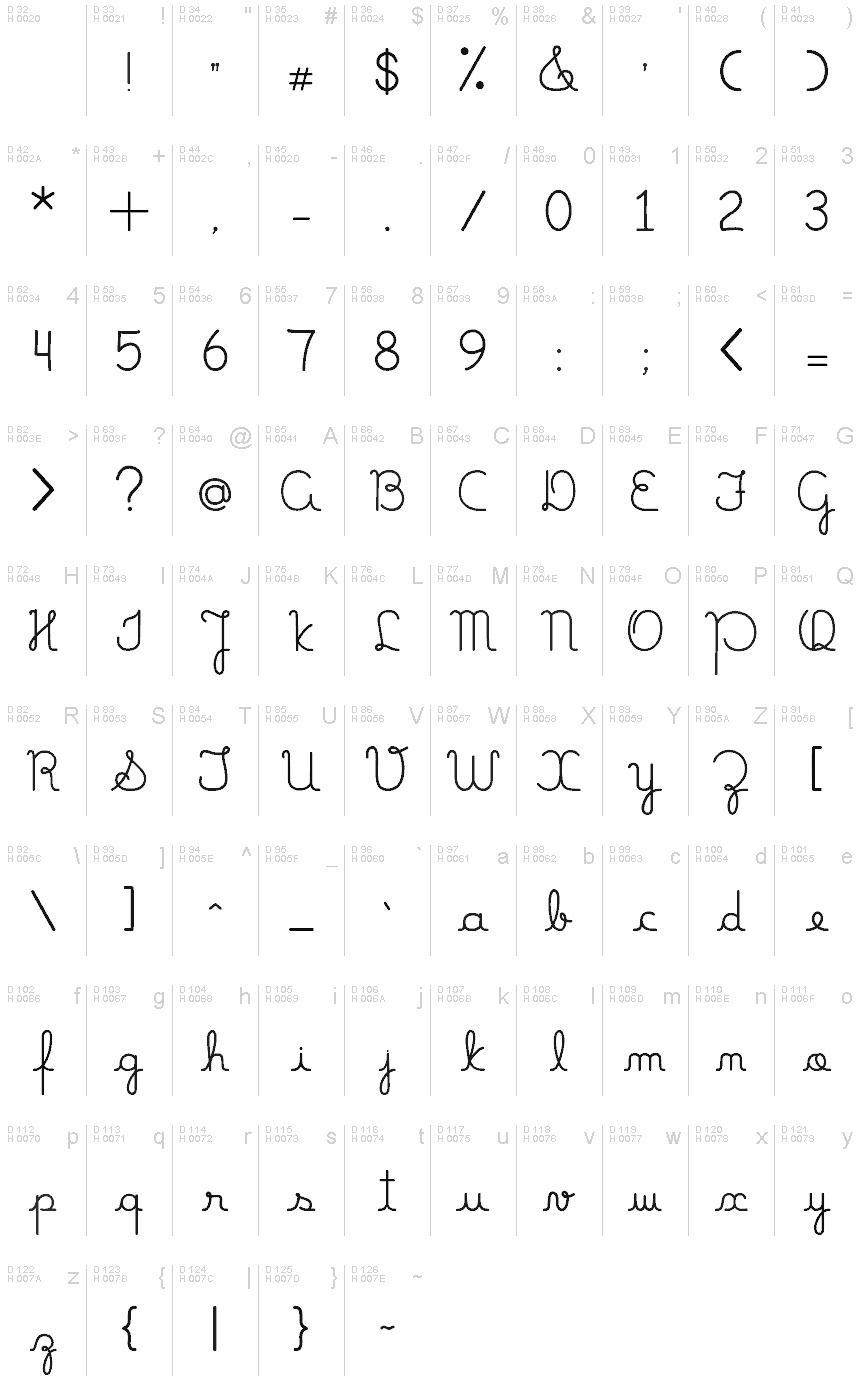
Mamae Que Nos Faz is a captivating script font that exudes a gentle, handwritten charm. Its delicate, flowing strokes and whimsical ligatures create a sense of effortless elegance, evoking the warmth and intimacy of a personal note. This light font is particularly well-suited for design projects with a school-inspired or educational theme, lending a touch of nostalgic appeal to invitations, stationery, and even branding materials.
With its versatility and distinctive character, Mamae Que Nos Faz offers designers a valuable tool to infuse their work with a touch of authentic, heartfelt expression.